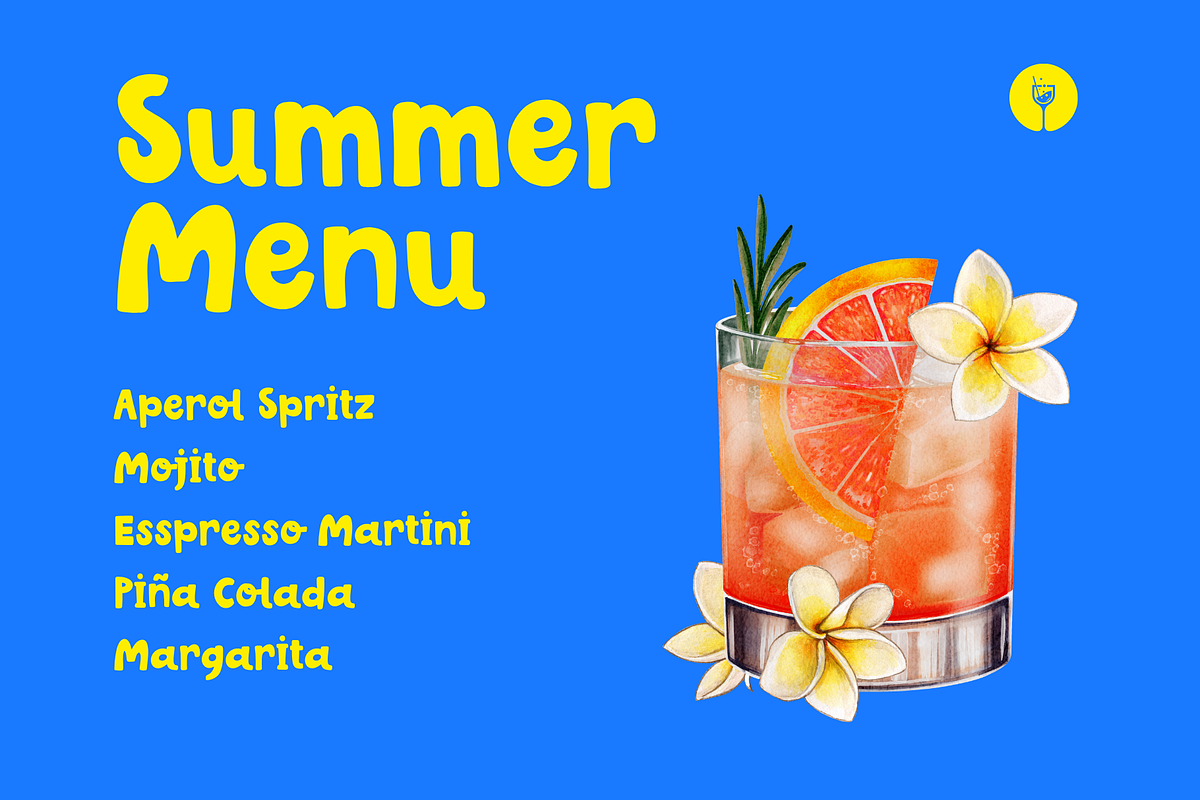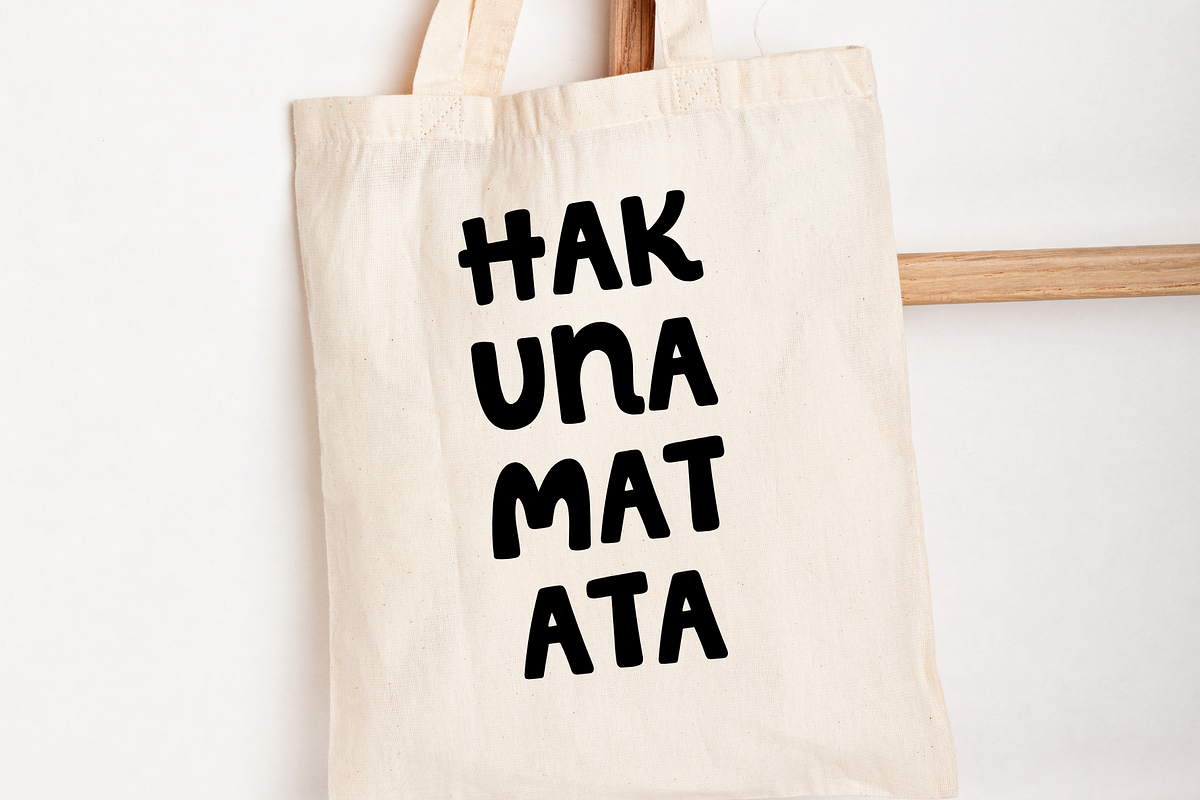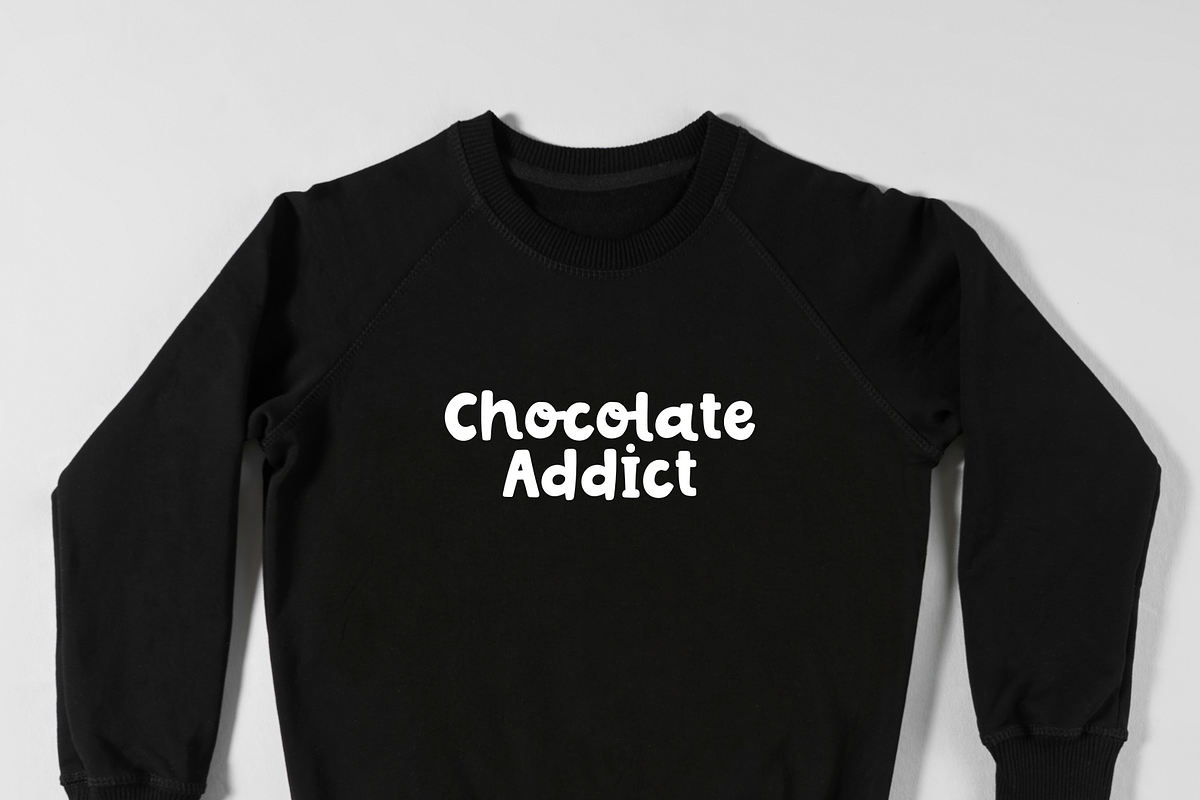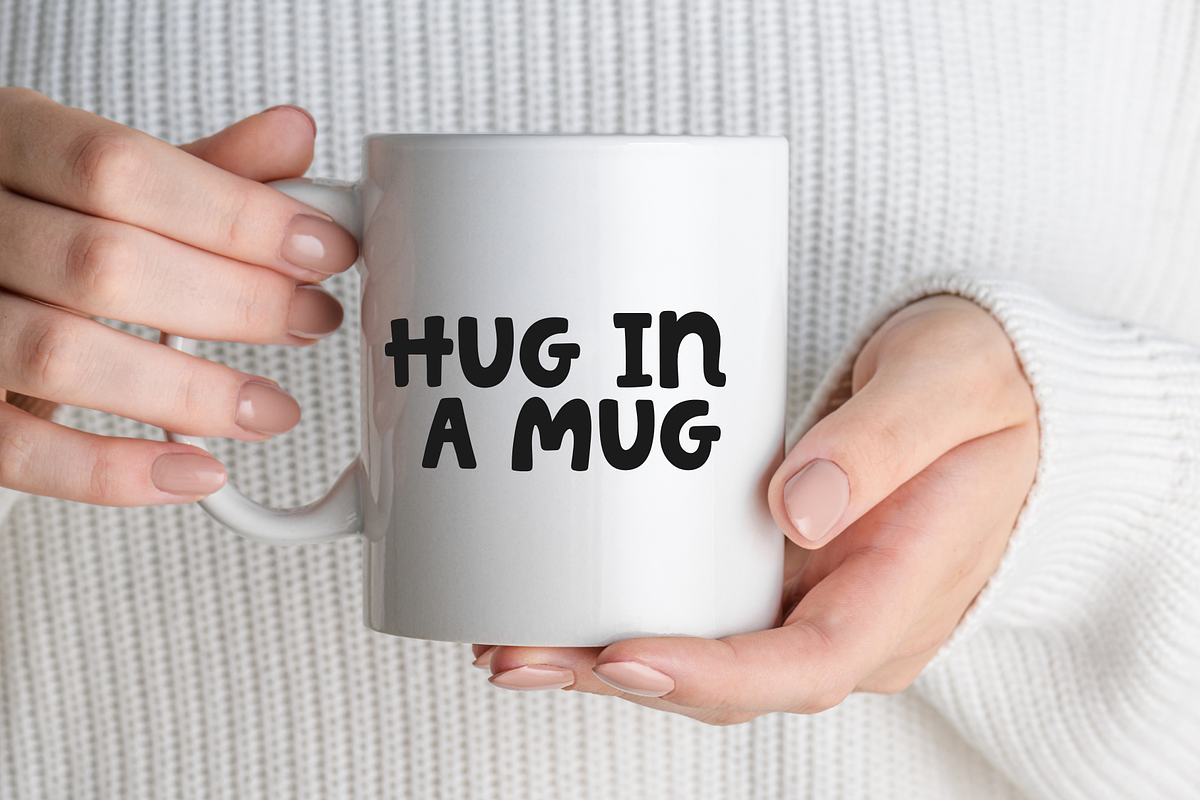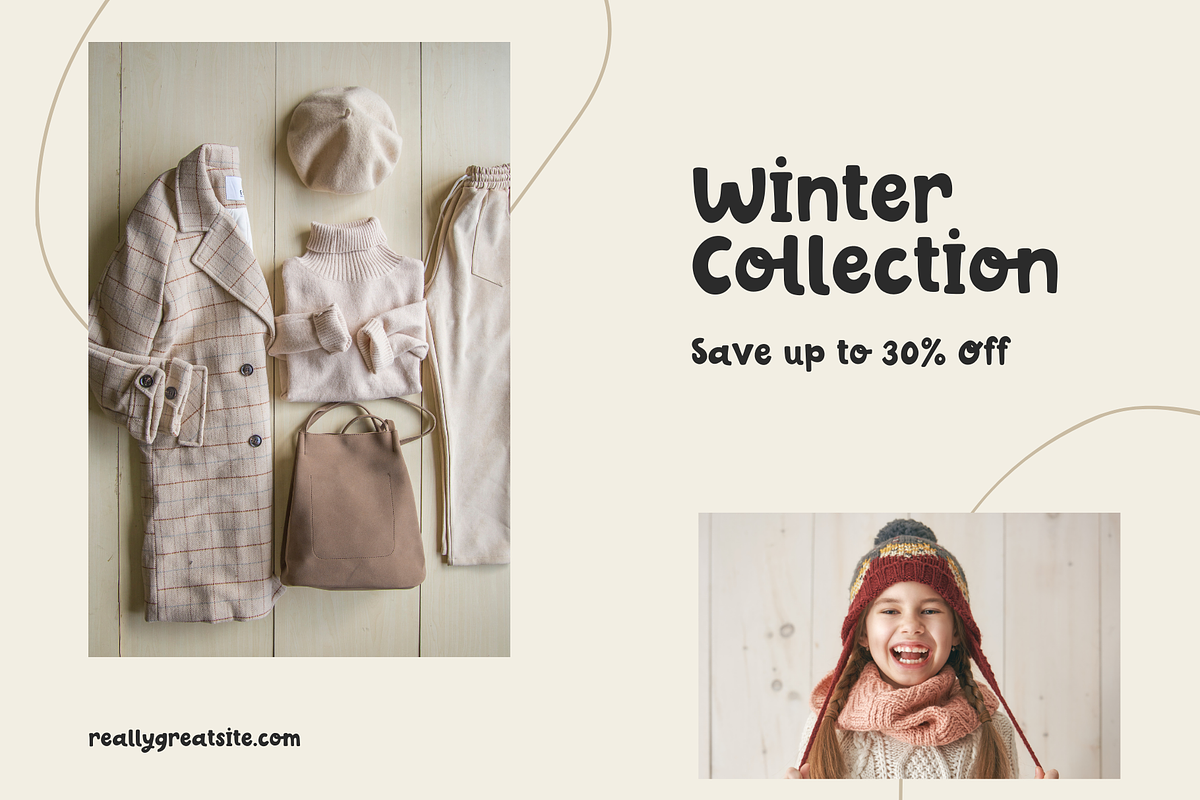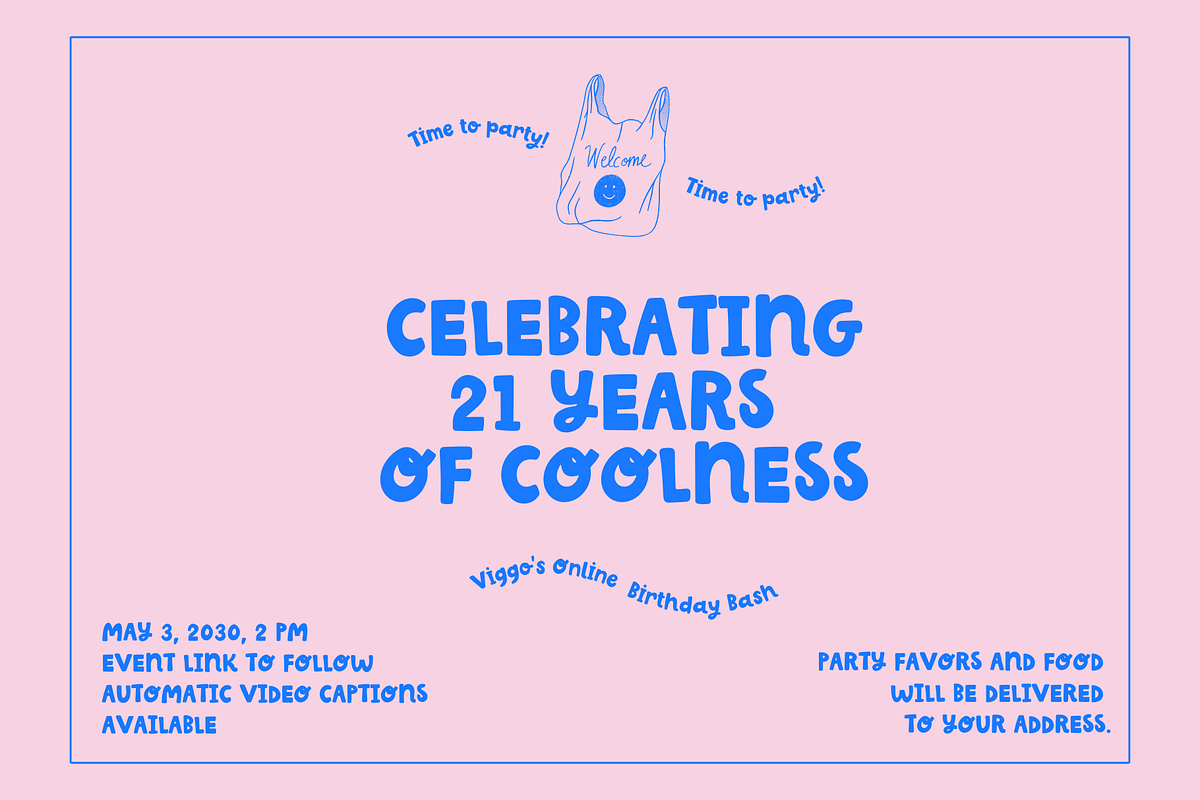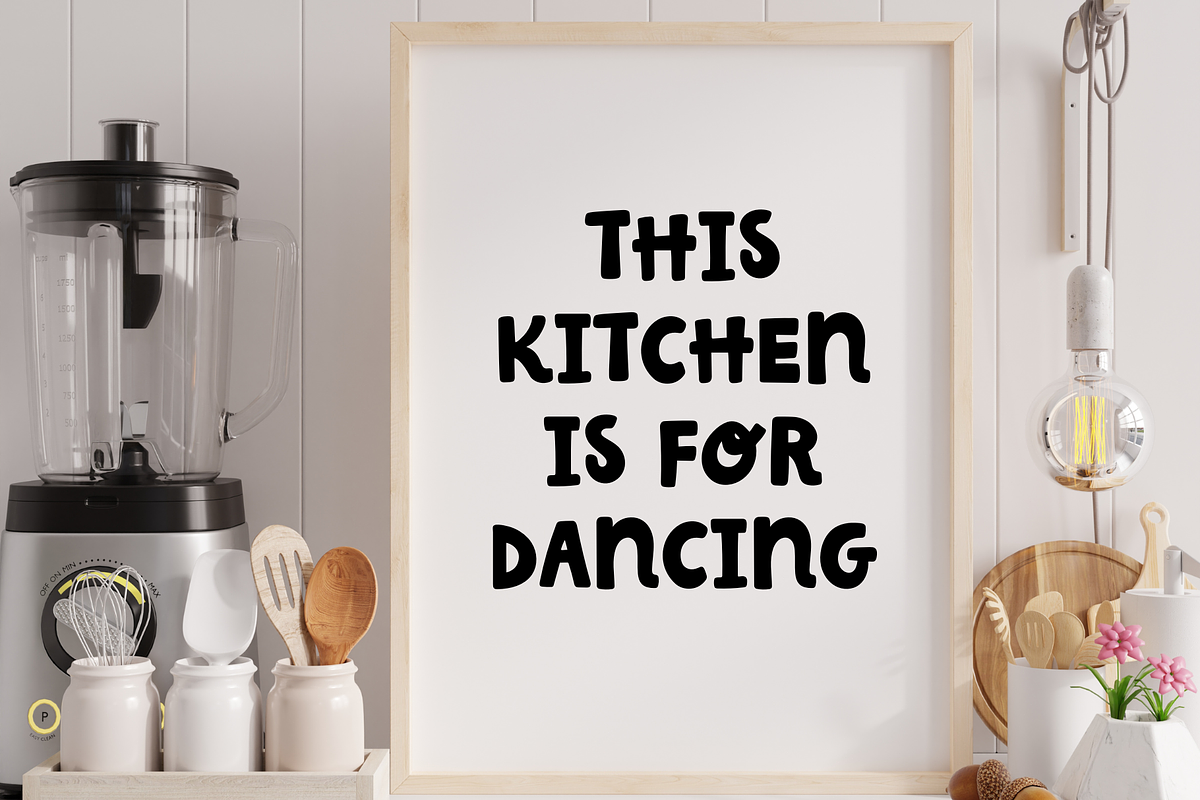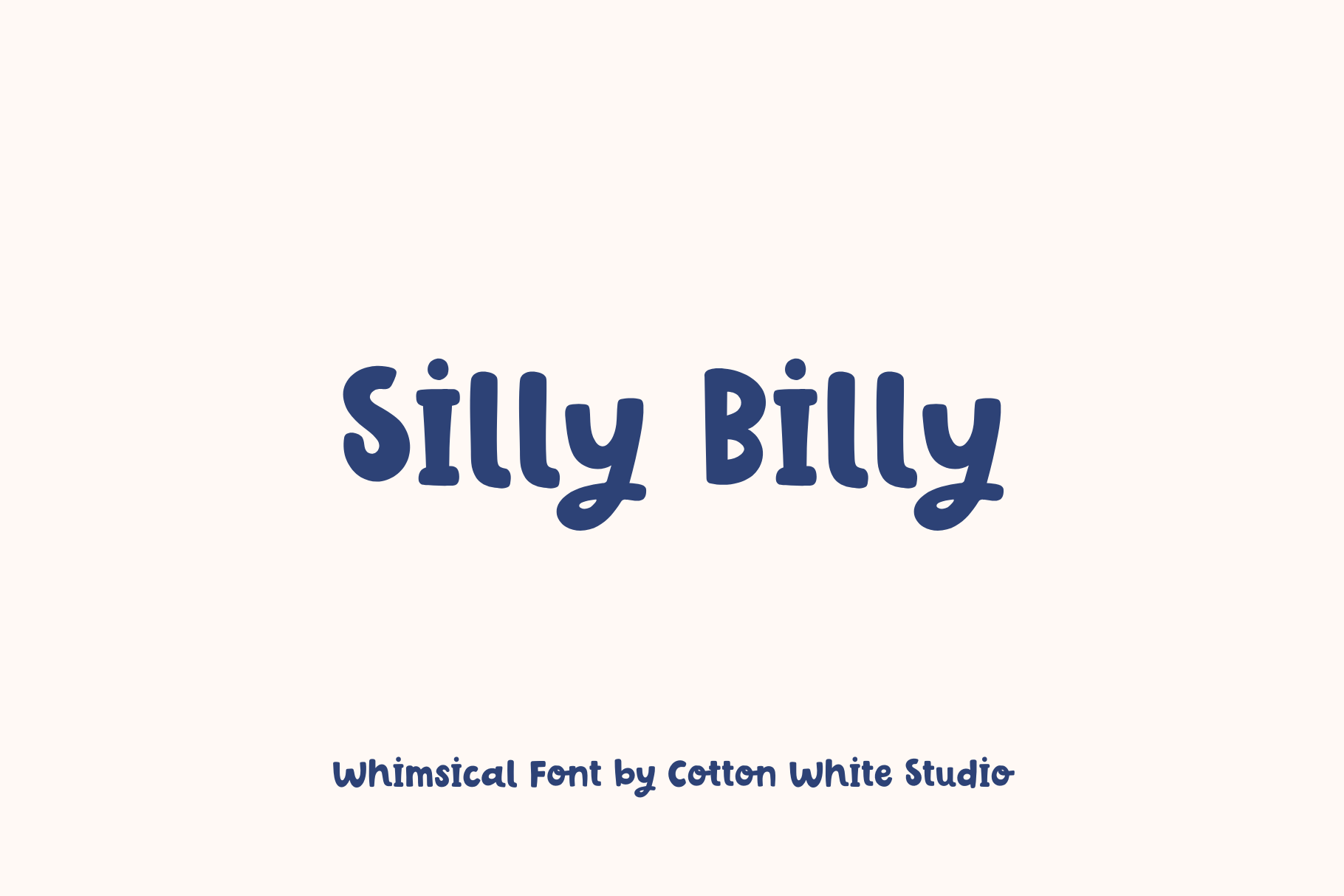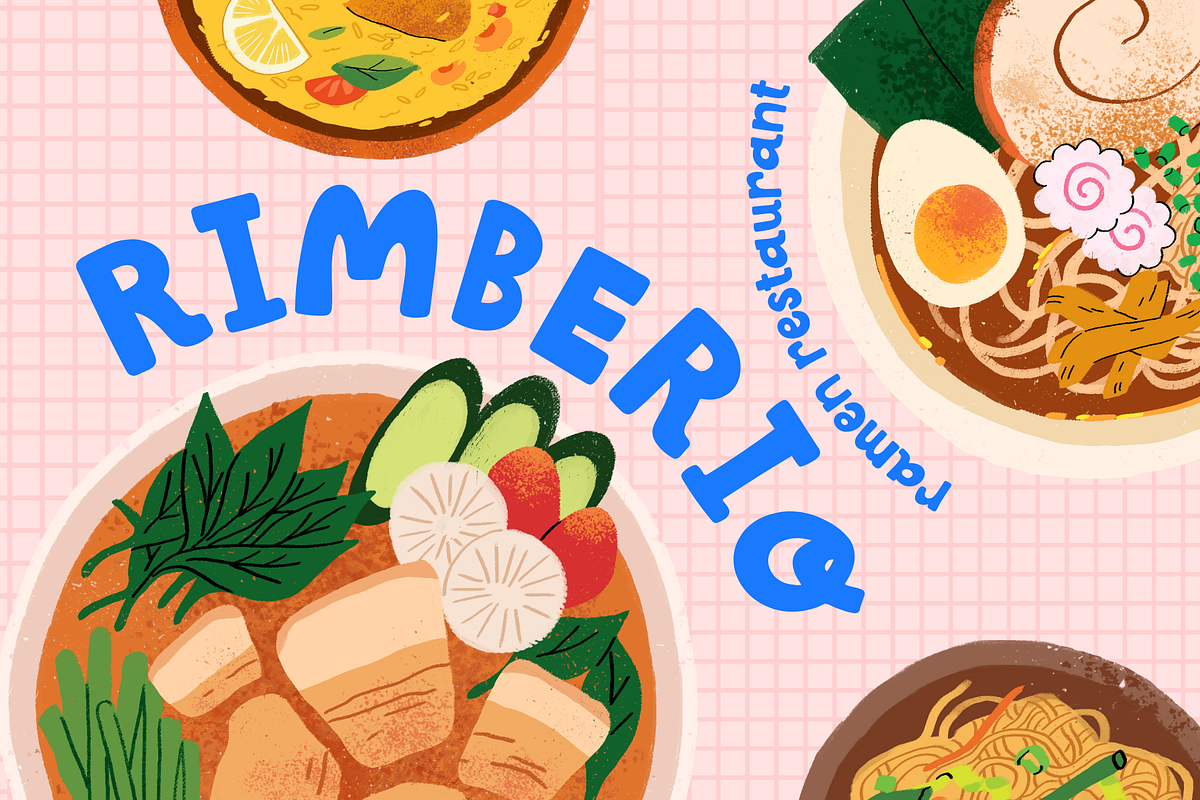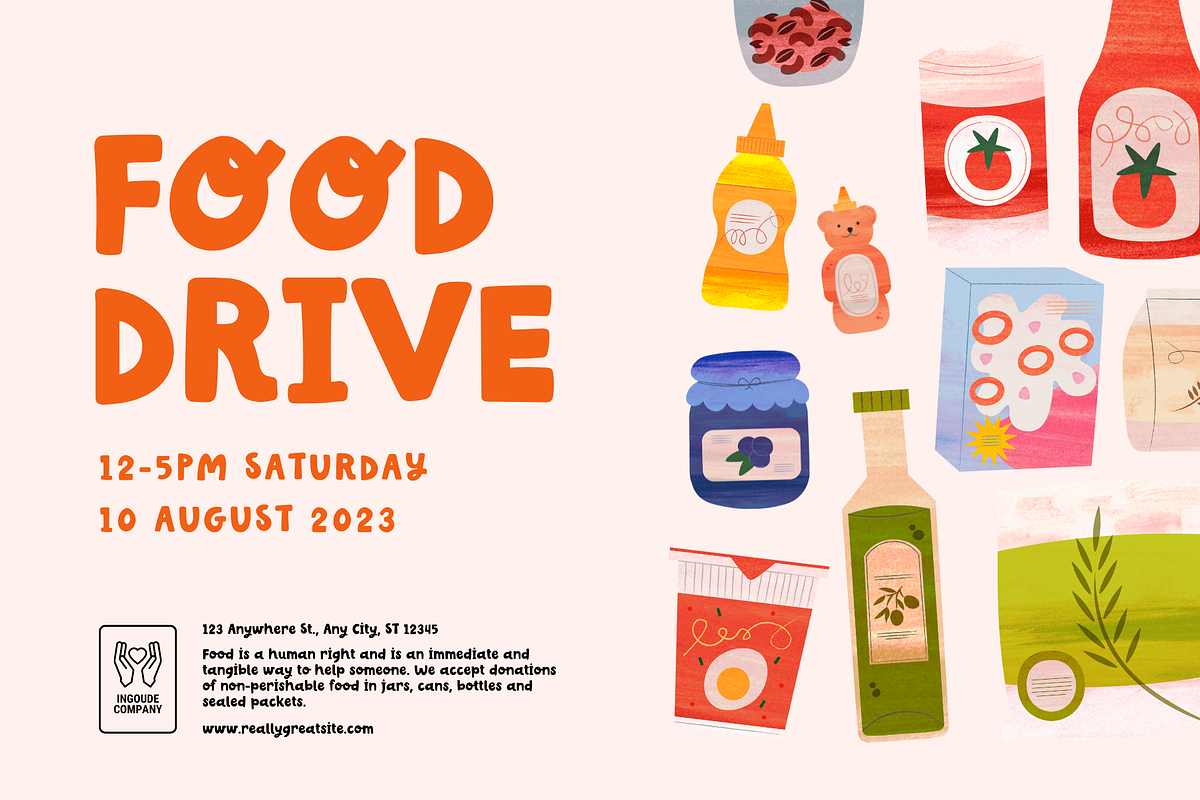
Silly Billy Cute Font
A cute and whimsical font to create super cute logos, branding, notebooks, journals, labels, stickers, blogs, quotes, greeting cards, tea towels, apparel, pillows, mugs, toys, posters, baby clothing, picture books and so much more... basically anything that requires a cute and fun look! 😍